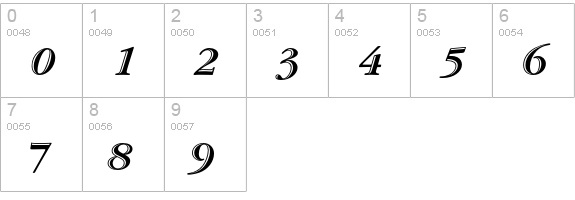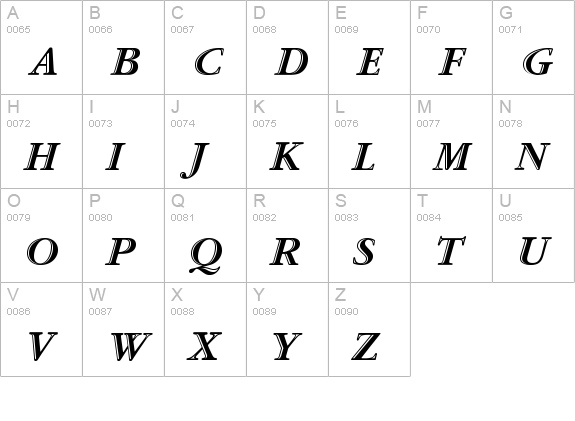
GaramondHandICG-Italic is a distinctive, italic variant in the GaramondHandICG typeface family \xE2\x80\x94 well suited to design and typography projects.
GaramondHandICG-Italic is a stunning italic font that exudes elegance and sophistication. With its graceful curves and subtle slant, this font is perfect for adding a touch of style to any project. Its timeless design makes it versatile for a wide range of applications, from invitations to branding materials. What makes GaramondHandICG-Italic even more appealing is that it is available for free download at FontsMarket.com. This means that you can access this beautiful font without any cost, making it a valuable addition to your font collection. Whether you are a designer looking to elevate your projects or a creative individual wanting to enhance your writing, GaramondHandICG-Italic is a fantastic choice that won't break the bank. Download it today and add a touch of sophistication to your work!